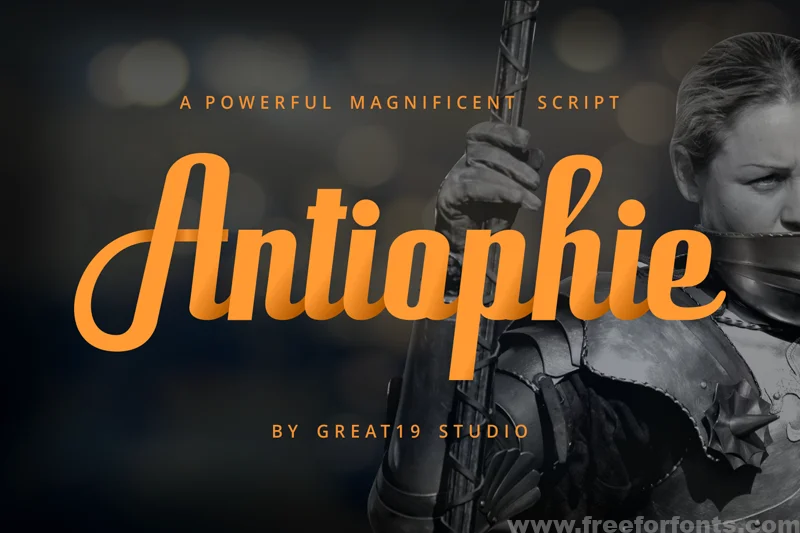
Antiophie Font
Antiophie Font is perfect for elegant branding, luxury invitations, fashion editorials, beauty product packaging, sophisticated logos, high-end magazines, romantic greeting cards, premium wine labels, jewelry catalogs, spa and wellness materials, wedding stationery, and upscale boutique signage.
What makes Antiophie Font exciting is its graceful sophistication that captures the essence of timeless elegance through meticulously crafted letterforms. This enchanting typeface combines classical beauty with contemporary refinement, creating a distinctive character that speaks to discerning audiences seeking sophistication and style. The font's flowing curves and balanced proportions convey luxury and exclusivity while maintaining exceptional readability across various applications. Its refined aesthetic and attention to detail make it perfect for brands that want to project elegance, quality, and memorable visual presence in competitive luxury markets.
The Antiophie Font family includes regular, italic, and ornamental styles, featuring elegant swashes, stylistic alternates, and decorative ligatures. The character set incorporates sophisticated flourishes, refined numerals, and elegant punctuation marks that enhance the font's premium character and provide designers with extensive creative possibilities.
Whether you're developing luxury brand identities, designing editorial publications, or creating premium marketing materials, Antiophie Font Free Download delivers the sophisticated elegance your high-end projects demand. This premium typeface excels in applications where refinement and visual distinction are crucial for brand positioning and audience engagement. The font's artistic excellence includes carefully optimized spacing, advanced OpenType features, and comprehensive language support for international luxury markets. Design agencies and premium brands choose this font for its ability to communicate exclusivity while maintaining perfect readability. The extensive character set supports multiple languages and special symbols, expanding its versatility for global luxury applications. Professional designers appreciate its seamless performance across digital and print media, ensuring consistent brand expression. When you incorporate this exceptional typeface into your luxury communications, you're selecting a typography solution that elevates brand perception and creates lasting impressions through sophisticated visual storytelling that resonates with affluent audiences and maintains premium positioning in today's competitive marketplace.